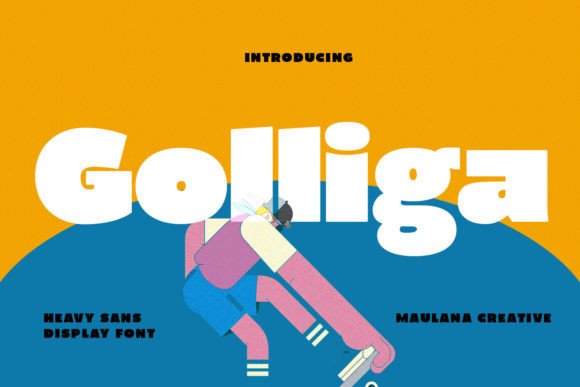
Behold, Golliga, the sans-serif font family that oozes boldness and impact, crafted by the visionary Maulana Creative. This typographical masterpiece is not just a font; it's a declaration of power and confidence, designed to turn heads and leave a lasting impression.
Golliga's thick, heavy lines command attention, exuding an aura of strength and authority. Its clean and minimalist design, devoid of unnecessary embellishments, gives it a contemporary edge that resonates with modern aesthetics. Whether you seek to create logos that demand recognition or headlines that scream for attention, Golliga is your perfect partner in crime.
With its innate versatility, Golliga transcends the boundaries of traditional font usage. Its bold strokes lend a touch of sophistication to business flyers, capturing the essence of professionalism and reliability. Its strong presence adds weight to posters, conveying messages with an air of authority and conviction. And let's not forget its undeniable charm in the realm of social media graphics, where it commands attention and sparks engagement.
Golliga is more than just a font; it's a tool of empowerment, a weapon in the arsenal of creative expression. It's the font that transforms ordinary designs into extraordinary creations, the font that elevates your brand identity to new heights. Embrace the power of Golliga and watch your creative visions come to life with a boldness that's impossible to ignore.